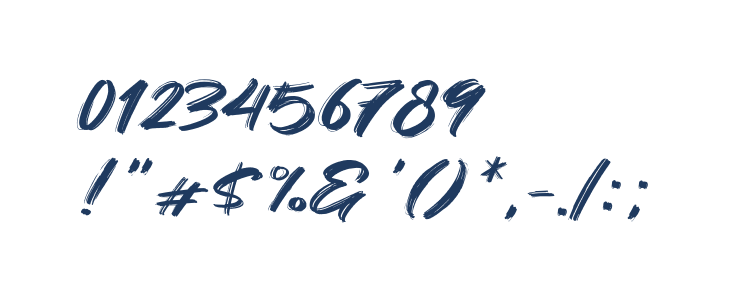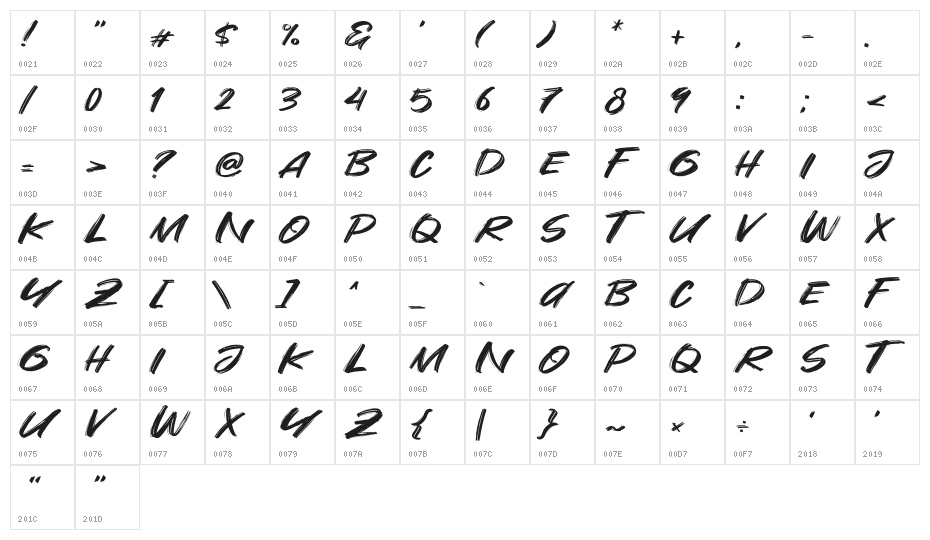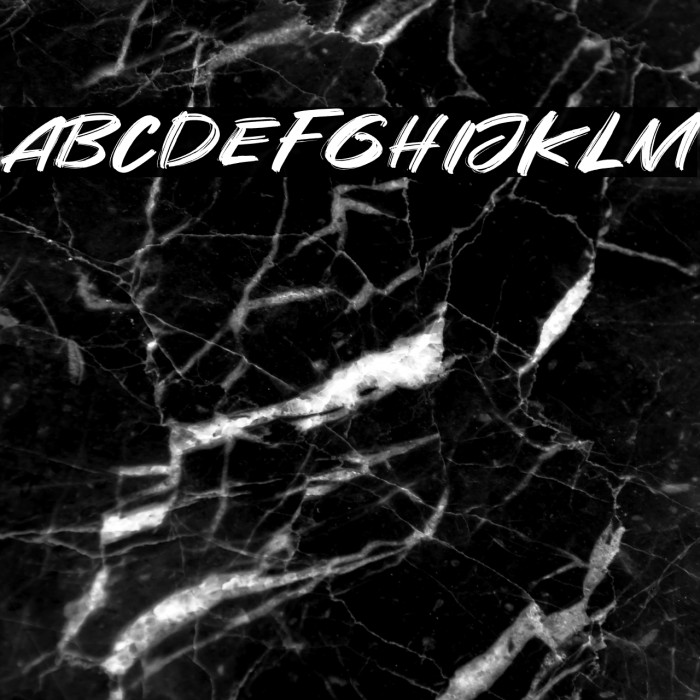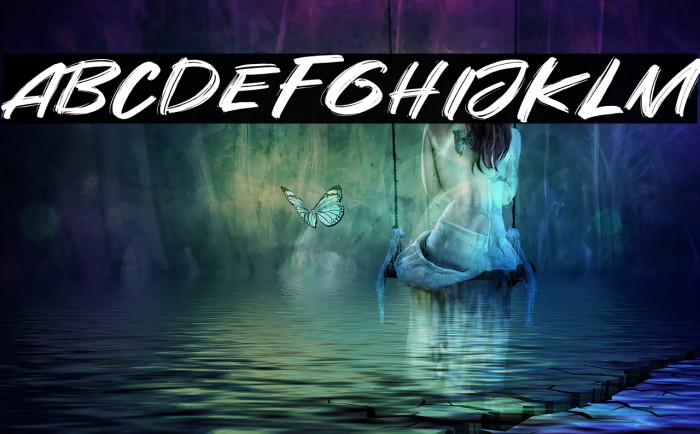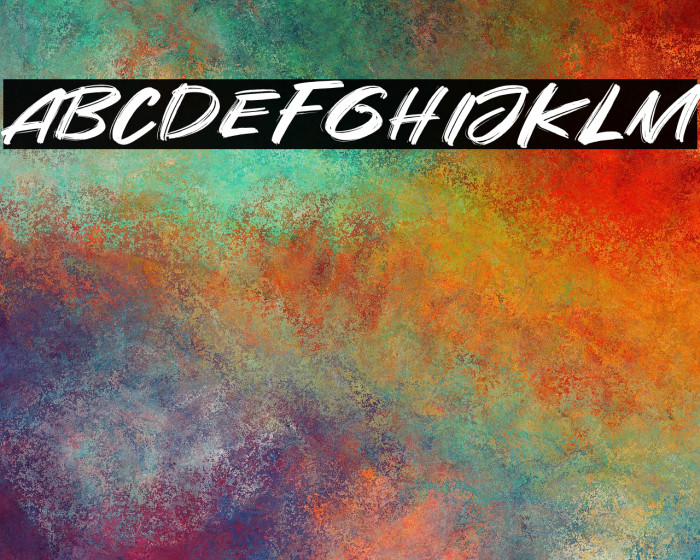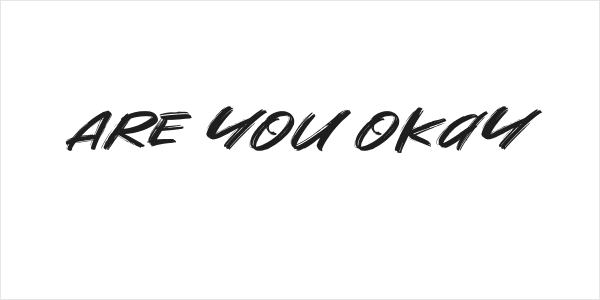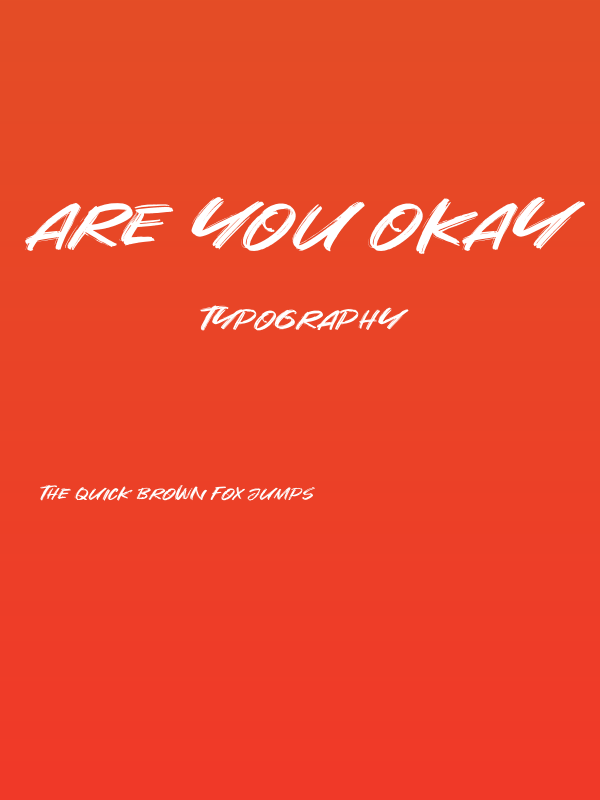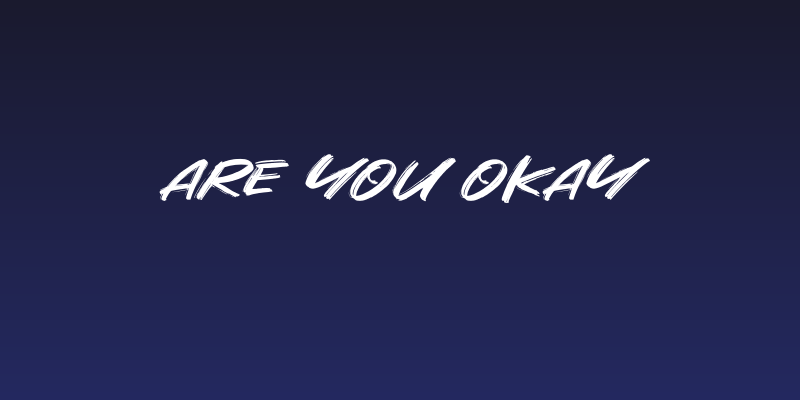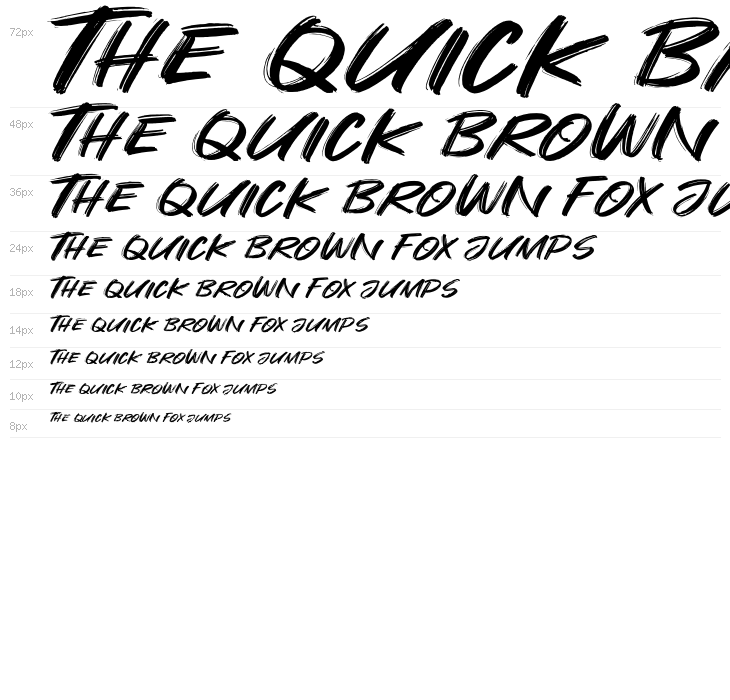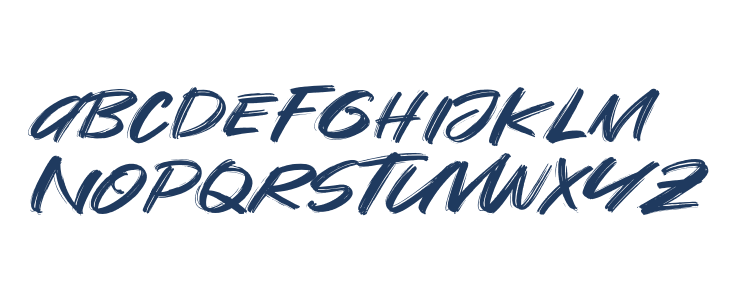
Are You Okay Font
Are You Okay Description
This font features a dynamic and energetic brush script style, characterized by bold, sweeping strokes that convey a sense of movement and flair. The letters are slightly slanted, adding to the casual and informal feel, while maintaining legibility. The uppercase and lowercase letters are consistent in style, with a playful and artistic touch. The numbers and special characters complement the alphabet with the same bold and expressive strokes, making it suitable for creative and eye-catching designs.
| Proposed Projects | Ideal for branding projects, poster designs, social media graphics, and any creative work that requires a bold and artistic touch. |